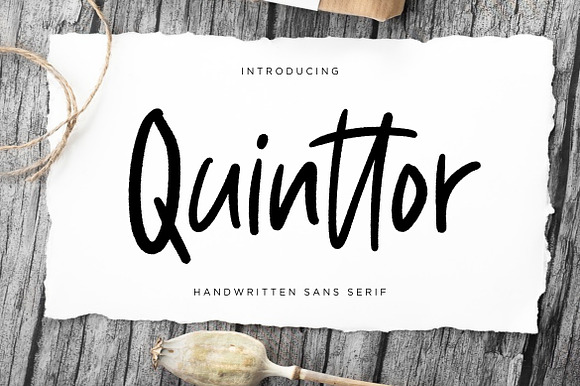
Quinttor Sans Business Font
Quinttor Sans Business Font by creatype is a font selected for branding, posters, packaging, typography.
Why Quinttor Sans Business Font is worth a look
Quinttor Sans Business Font by creatype fits naturally into Branding, posters, packaging, typography.